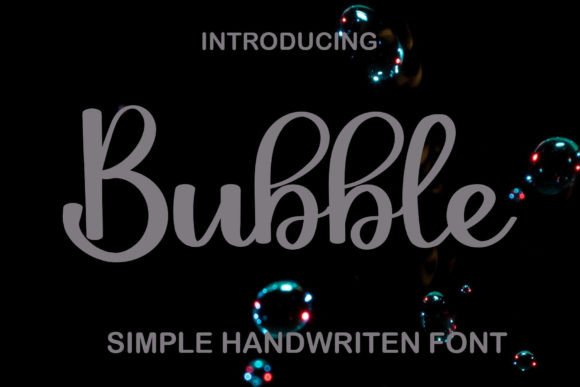
The Enchanting World of Bubble Font: A Designer’s Delight
I’ll never forget the moment I stumbled upon the Bubble font. I was working on a project for a client who wanted a elegant and flowing script font that would add a touch of sophistication to their branding. I had spent hours scouring the internet for the perfect font, but nothing seemed quite right. That was until I discovered Bubble – a delicate, elegant, and flowing handwritten font that has since become one of my go-to’s.
**The moment I saw it, I knew I had found the one!** ✨ The beautiful and well-balanced characters seemed to dance on the page, and I couldn’t wait to see how it would bring my client’s brand to life.
An Honest Review of Bubble Font
• Elegant and flowing script: Bubble font has a beautiful, cursive feel that’s perfect for adding a touch of sophistication to any design.
• Well-balanced characters: Each character is carefully crafted to ensure that the font looks great in any context.
• 🌈 Versatile: Bubble font matches a wide pool of designs, making it a great addition to any designer’s toolkit.
While Bubble font is a stunning addition to any design, there are a few things to keep in mind:
• 🤔 Limited use in body text: While Bubble font is perfect for headings and titles, it may not be the best choice for body text due to its elegant and flowing nature.
• ⚠️ Requires careful kerning: As with any script font, it’s essential to pay attention to kerning to ensure that the text looks its best.
The Designer Inspiration Behind Bubble Font
The story behind Bubble font is one of passion and creativity. According to its designer, Bubble font was inspired by the flowing scripts of traditional calligraphy. With a focus on elegance and refinement, the designer aimed to create a font that would add a touch of sophistication to any design.
Font Name Bubble Font
Author asmunin78
Q: What is Bubble font?
A: Bubble font is a delicate, elegant, and flowing handwritten font that’s perfect for adding a touch of sophistication to any design.
Q: Is Bubble font suitable for body text?
A: While Bubble font is perfect for headings and titles, it may not be the best choice for body text due to its elegant and flowing nature.